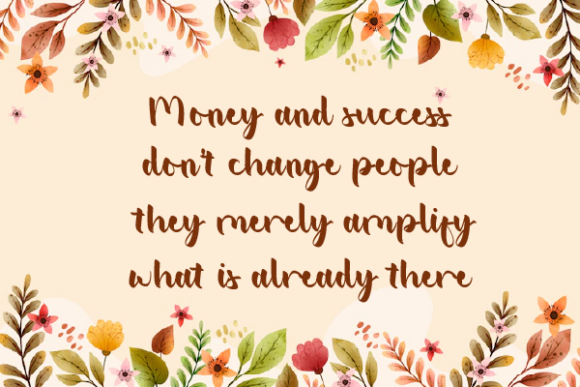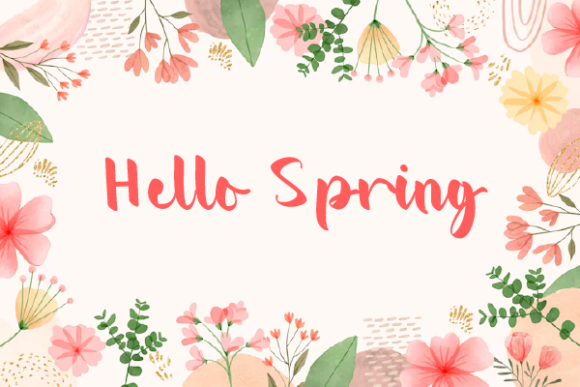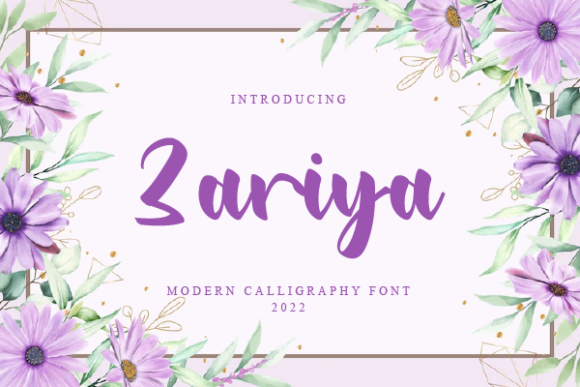
Zariya Font
About Zariya Font
“Zariya” is a modern handwritten calligraphy font that adds an elegant and beautiful touch to your writing and brand. This versatile font is well-suited for a variety of creative applications, including unique branding, photo overlays, watermarks, greeting cards, posters, business cards, invitations, weddings, photography, fashion, apparel, lettering, stationery, and more.
The calligraphic style of “Zariya” brings a modern and sophisticated look to your designs. Its flowing and expressive strokes make it a perfect choice for projects that require a touch of elegance and uniqueness.
In branding, “Zariya” becomes a valuable asset, offering a stylish and memorable visual identity. Its modern calligraphy elevates the overall perception of a brand, making it elegant and appealing to a broad audience.
For photo overlays and watermarks, “Zariya” adds a signature-style touch, enhancing the professional and personalized look of your images. The font’s versatility allows it to adapt seamlessly to different visual contexts.
In invitations and wedding-related designs, “Zariya” brings a romantic and stylish flair. The calligraphic script creates a sophisticated atmosphere, making it a perfect choice for conveying love and celebration.
Whether you’re working on digital or print projects, “Zariya” serves as a modern handwritten calligraphy font that can elevate your designs. Let it be the key to adding elegance and beauty to your projects, making them stand out and leaving a lasting impression.